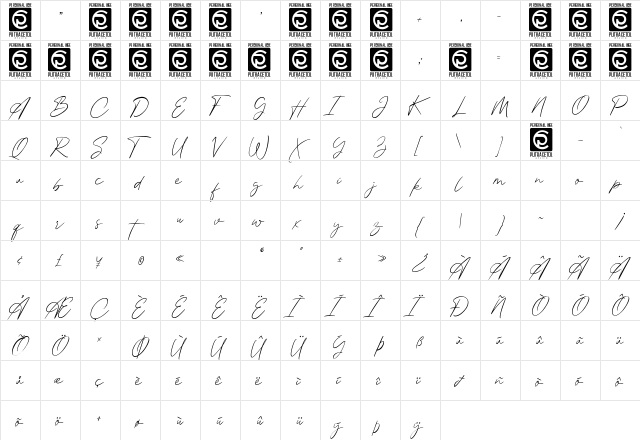
Attaira Regular
| Foundry | Putracetol Studio, Karanganyar. |
| Designer | Putra Novembria Candra Kusuma |
Design Context for Attaira Typeface
Attaira is a composed and adaptable typeface that performs quietly and consistently across a wide range of design contexts.